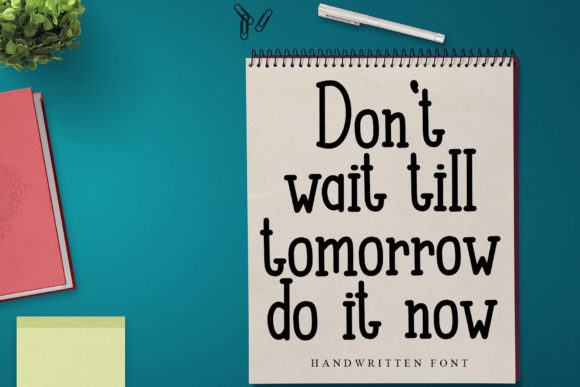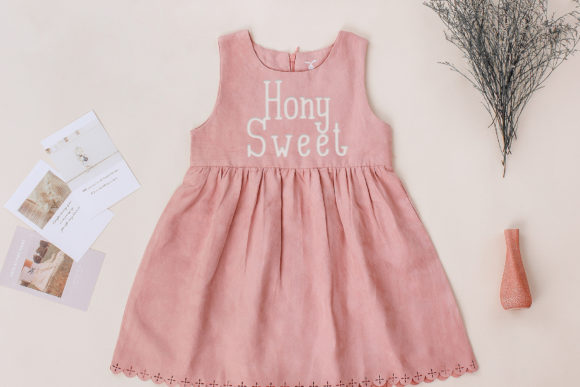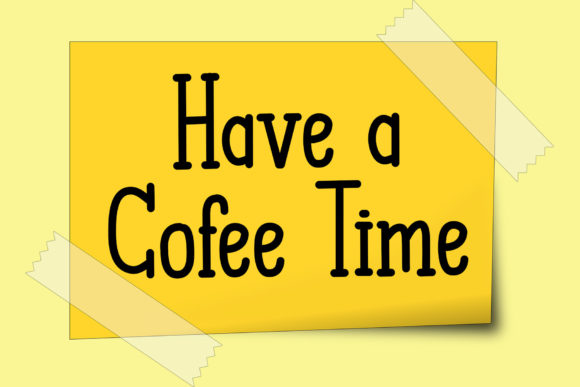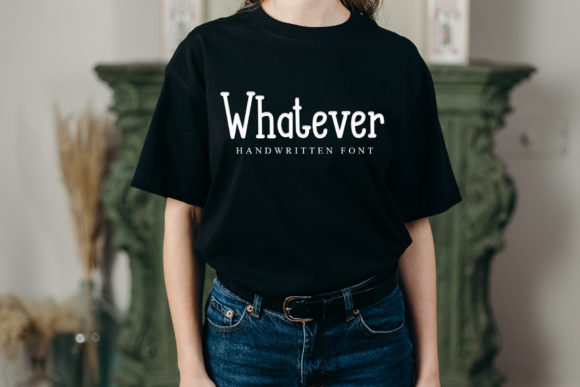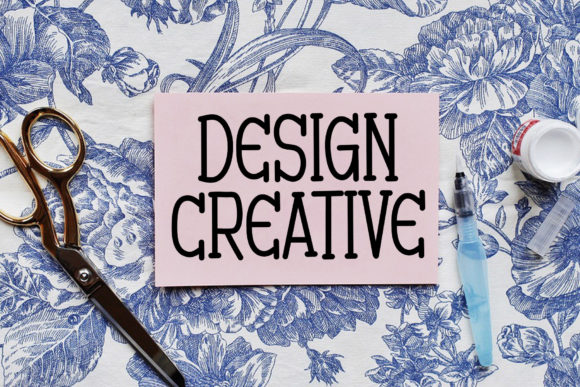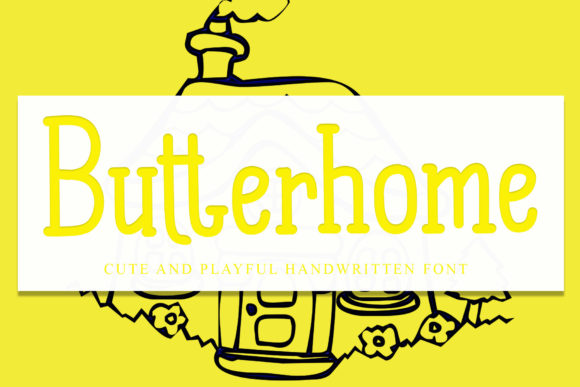
Introducing Butterhome Font: The Fun and Cute Handwritten Font for All Your Design Needs
Are you tired of using the same old fonts in your designs? Look no further than Butterhome Font, a fun and cute handwritten font that’s sure to add a touch of personality to any project. With its quirky and playful vibe, Butterhome Font is perfect for designers and crafters who want to create unique and eye-catching designs that stand out from the crowd.
The Characteristics of Butterhome Font
Butterhome Font is a handwritten font that’s a little bit quirky, but incredibly adept at a wide variety of contexts. Its fun and cute design makes it perfect for use in:
- Children’s books and educational materials
- Invitations and party decorations
Whether you’re creating something for kids or adults, Butterhome Font is sure to bring a smile to people’s faces.
What Makes Butterhome Font So Special?
So, what sets Butterhome Font apart from other fonts out there? Here are just a few things that make it special:
- Unique and quirky design: Butterhome Font has a one-of-a-kind design that’s sure to grab people’s attention.
- Highly legible: Despite its playful design, Butterhome Font is incredibly easy to read, making it perfect for use in body text.
- Versatile: Butterhome Font can be used in a wide range of contexts, from formal to informal.
How to Use Butterhome Font in Your Designs
Using Butterhome Font in your designs is easy! Here are a few tips to get you started:
- Pair it with other fonts: Butterhome Font looks great when paired with other fonts, such as sans-serif fonts for a bold and playful look.
- Experiment with colors: Butterhome Font comes in a range of colors, so don’t be afraid to get creative and try out different color combinations.
- Use it for headings and titles: Butterhome Font is perfect for use in headings and titles, where its playful design can really shine.
Perfect for Crafters and Designers
Butterhome Font is a must-have for crafters and designers who want to add a personal touch to their projects. Whether you’re creating:
- Handmade cards and invitations
- DIY crafts and decorations
- Custom jewelry and accessories
- Branded merchandise and packaging
Butterhome Font is the perfect way to add a touch of personality and whimsy to your designs.